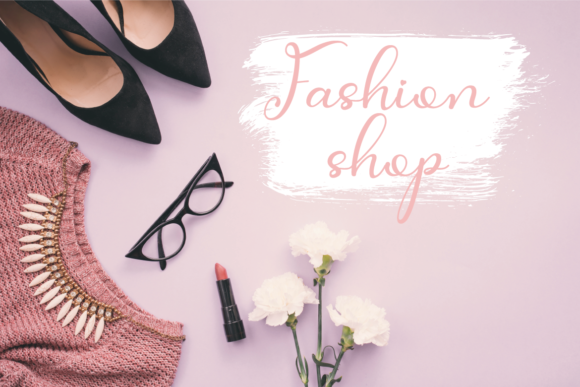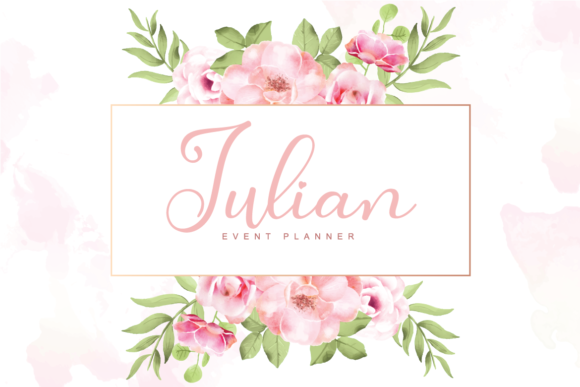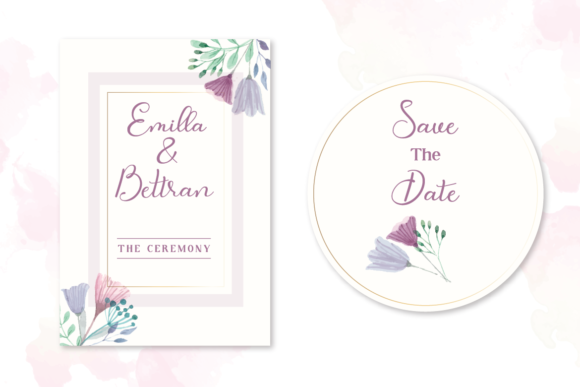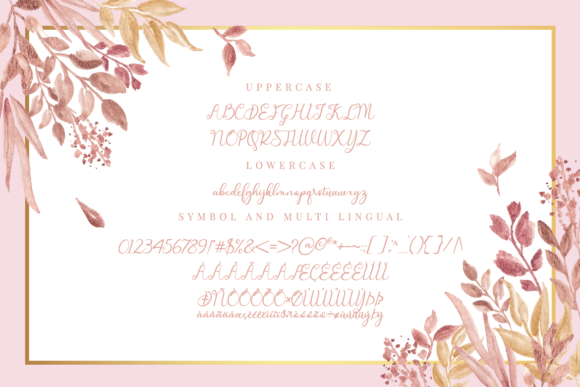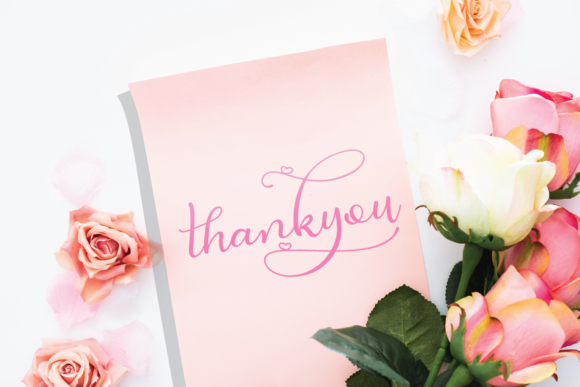
The Faletina Font: A Dynamic and Cute Script Font for Creative Projects
I’ll never forget the moment I stumbled upon the Faletina font while working on a craft project for a client. I was searching for a font that would add a touch of personality and whimsy to the design, but everything I found seemed either too boring or too over-the-top. That was until I discovered Faletina – a dynamic and cute script font that instantly caught my eye. In this article, I’ll share my experience with Faletina, its features, and how to make the most of it in your creative projects.
An Honest Review of Faletina Font
So, what makes Faletina so special? Let’s dive into the good stuff and some minor quirks I’ve encountered.
What I Love About Faletina ✨
- 💕 The beautiful, round character design gives it a friendly and approachable feel.
- ✅ Faletina is perfect for creating modern crafts, from DIY cards to social media graphics.
- 🎨 Its dynamic nature allows for a lot of creative freedom and experimentation.
- 👍 The font is highly legible, even at smaller sizes.
- ⚠️ Some characters might require manual kerning for optimal spacing.
- ⚠️ The font may not be suitable for very formal or traditional designs.
The Backstory of Faletina
Faletina was designed with the intention of creating a friendly and dynamic script font. The designer aimed to craft a font that would be perfect for creative projects, from DIY crafts to professional designs. Inspired by the beauty of handwritten scripts, Faletina brings a touch of warmth and personality to any design.
Q: What makes Faletina unique?
A: Faletina stands out due to its beautiful, round character design and dynamic nature, making it perfect for modern crafts and creative projects.
Q: Is Faletina suitable for body text?
A: While Faletina is highly legible, it’s primarily designed for display and creative projects. For body text, you might prefer a more traditional font.
| Font Name | Faletina Font |
| Author | ToniStudio |